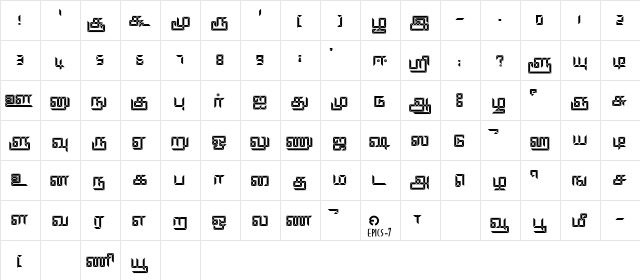
Keeravani Regular Font Preview
Keeravani Regular
Keeravani Regular Font Details
Design Context for Keeravani Typeface
Keeravani takes a measured approach to typography — its balanced proportions and neutral character make it a reliable workhorse for both digital and print work.